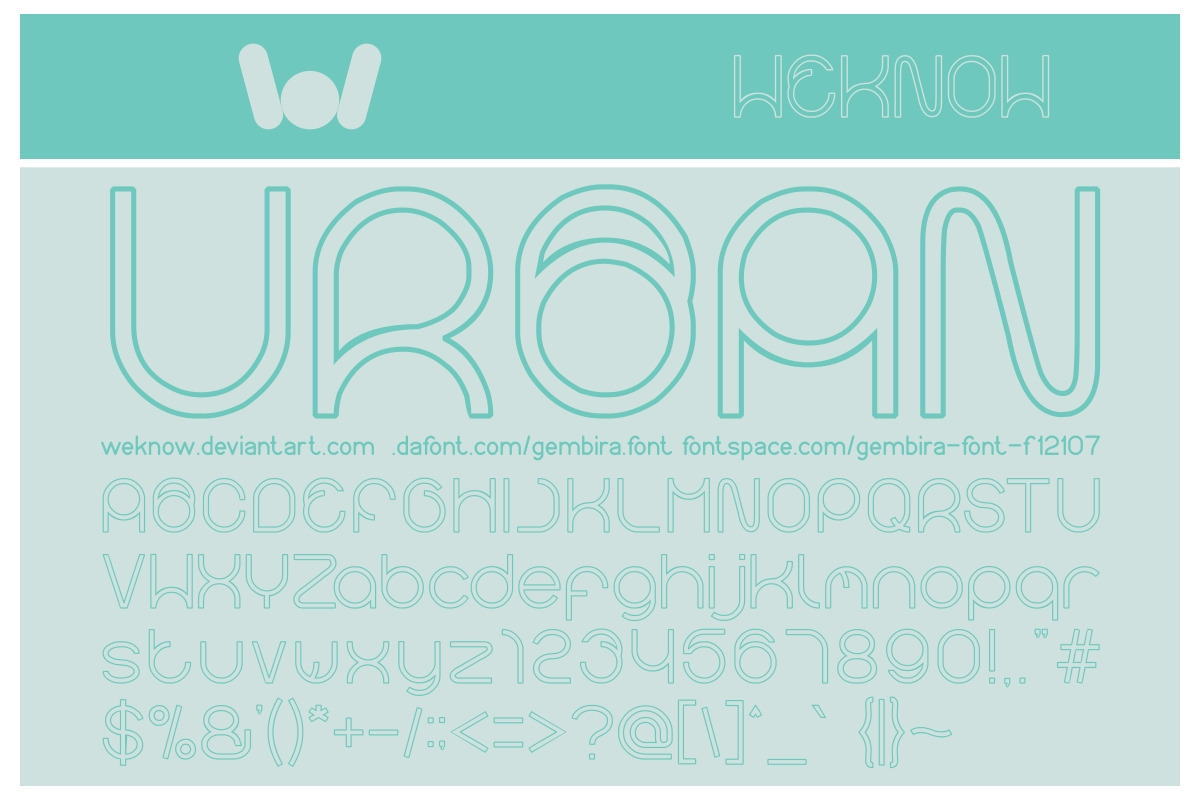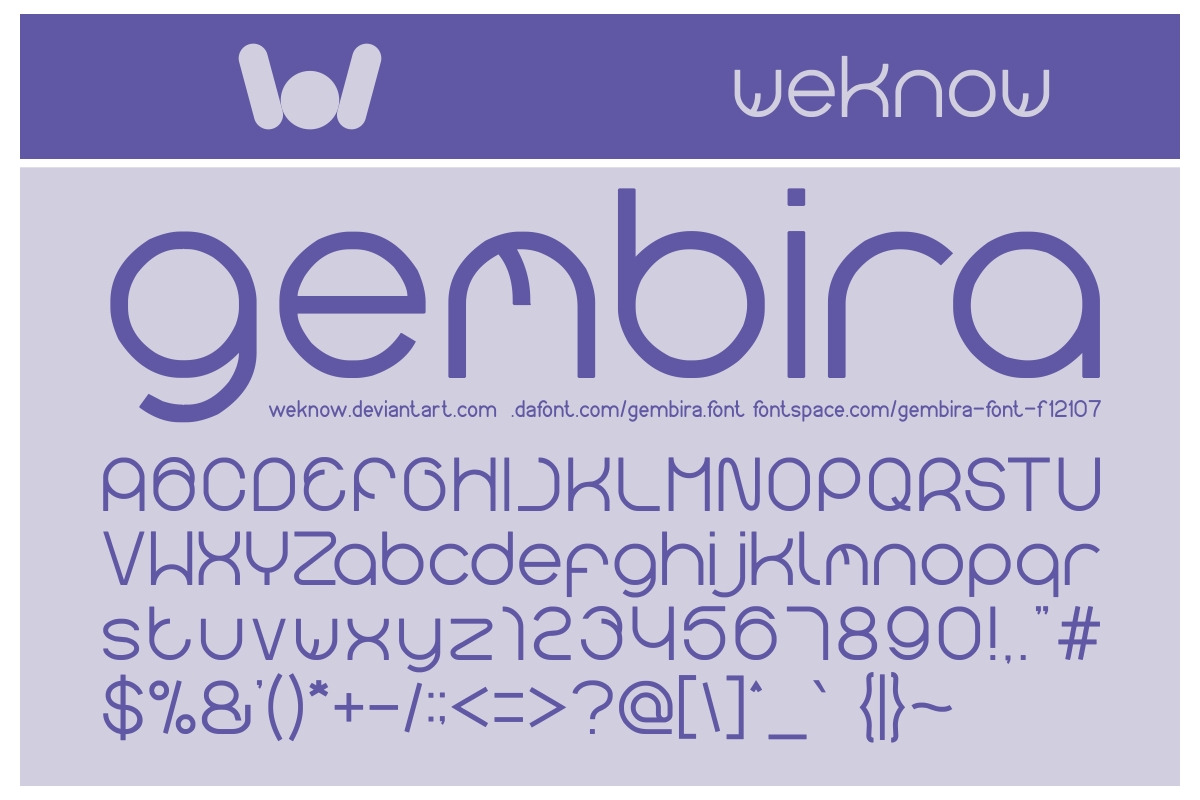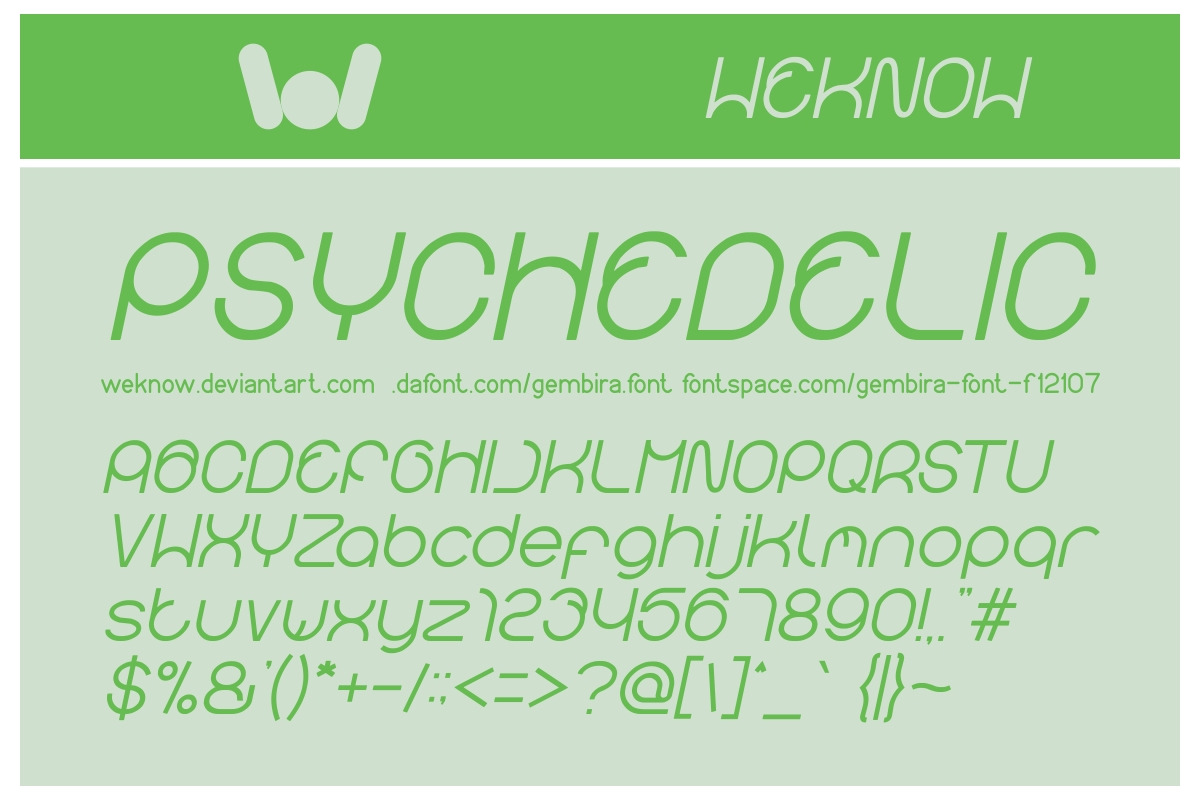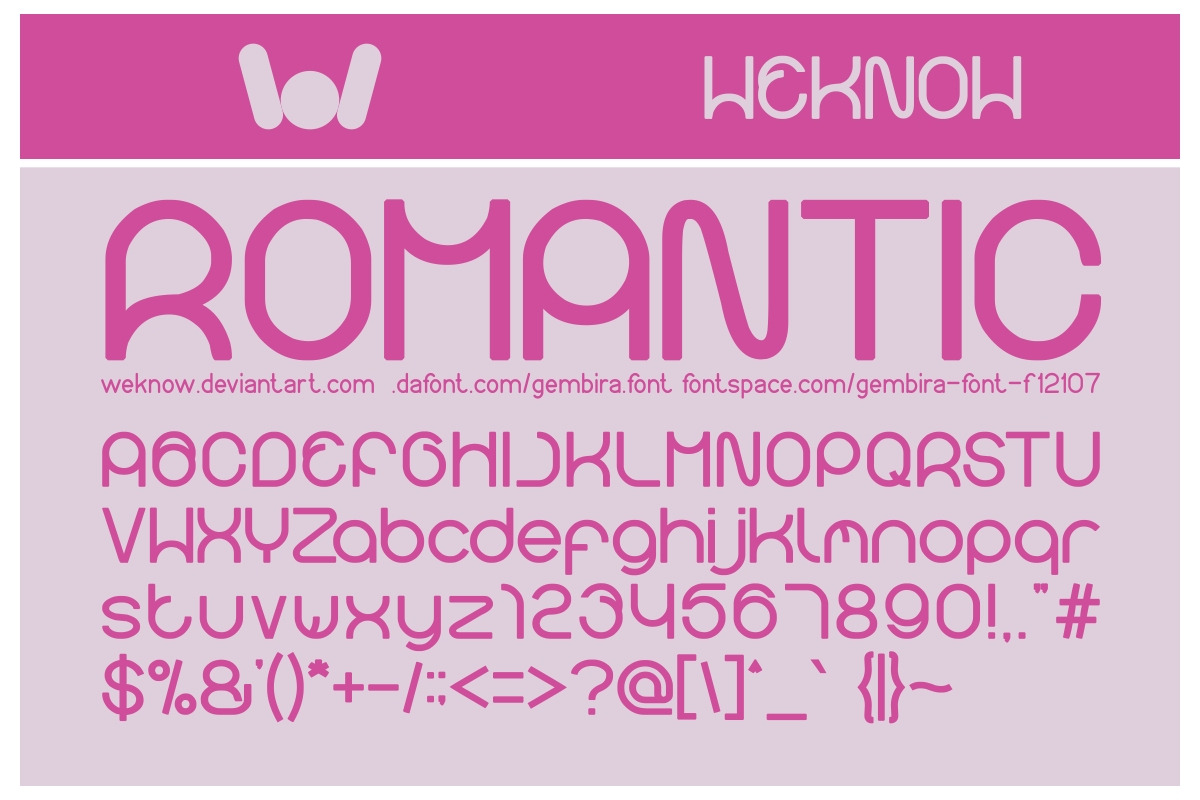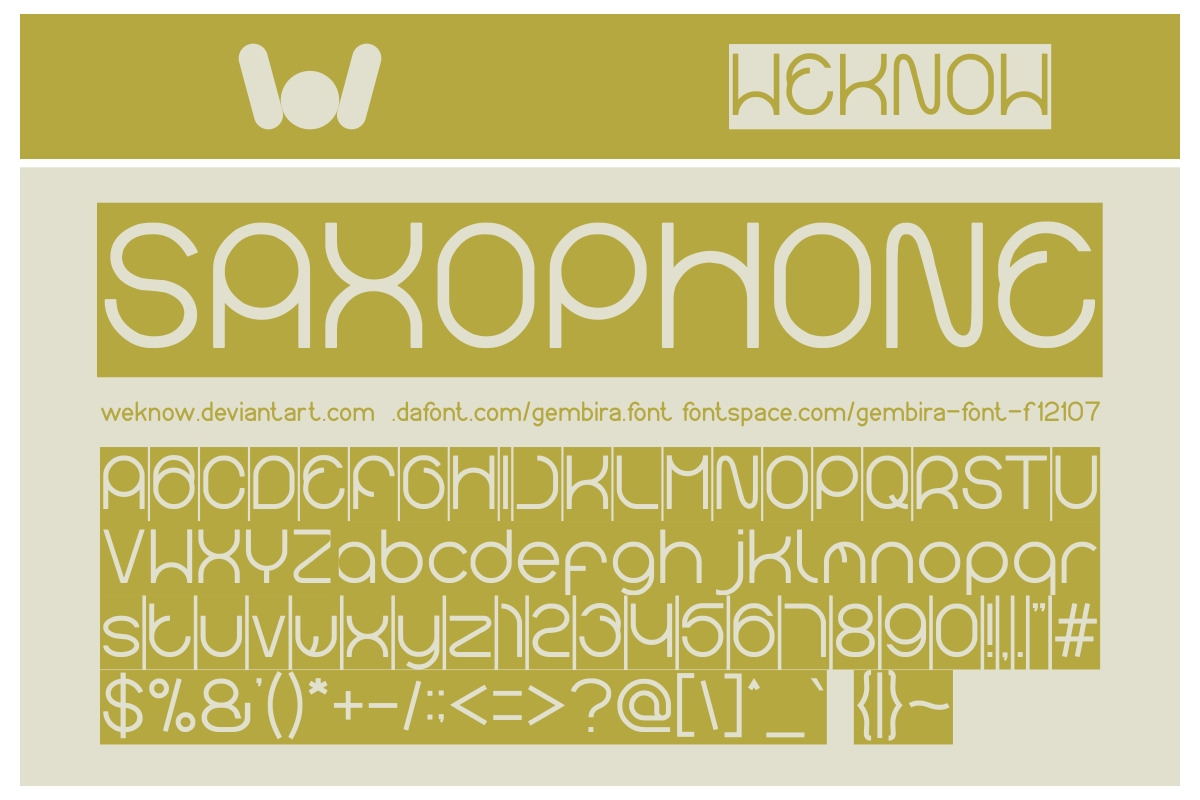
gembira font
available style: gembira-Italic, gembira-bold, gembira-bold-italic, gembira-Hollow, gembira-Hollow-Inverse, gembira-Inverse
Why gembira font is worth a look
gembira font by weknow fits naturally into Branding, posters, packaging, typography.